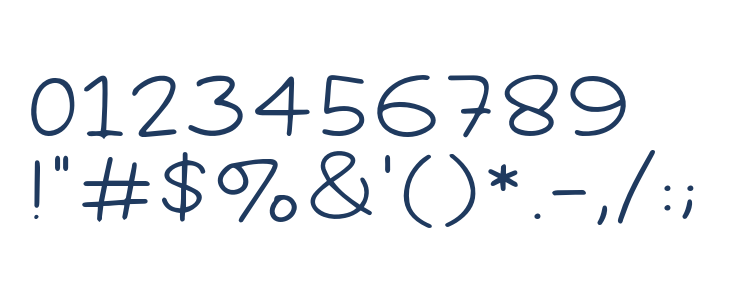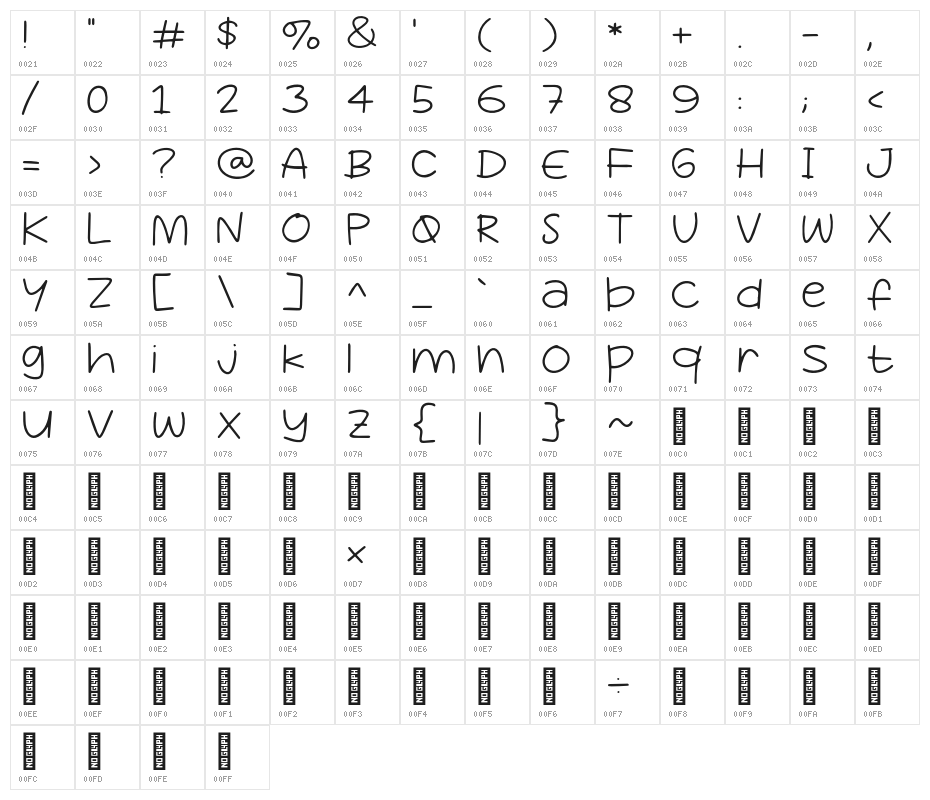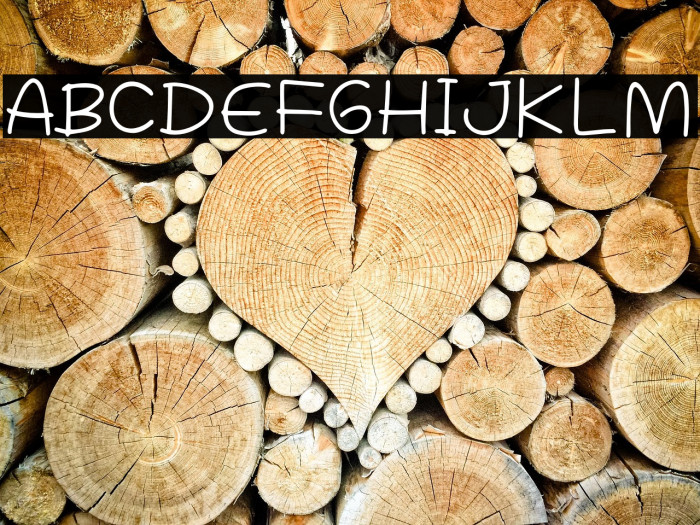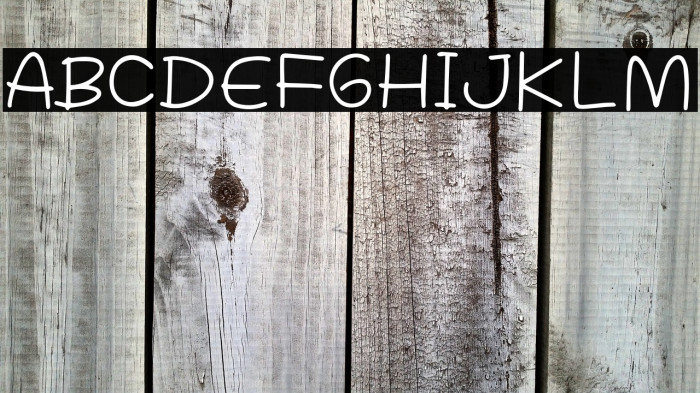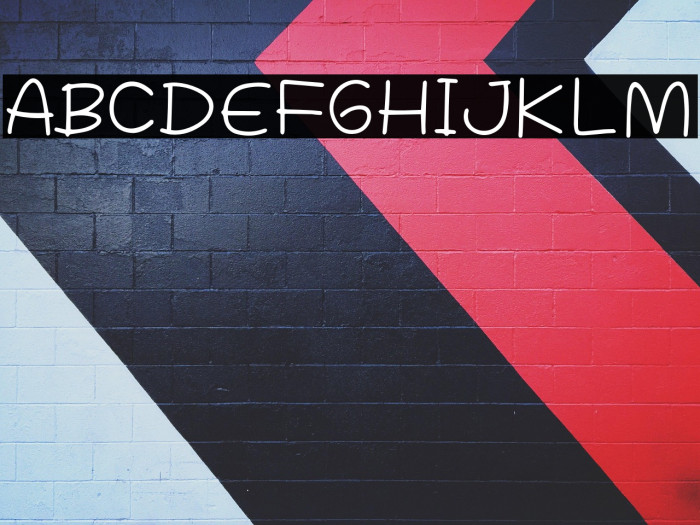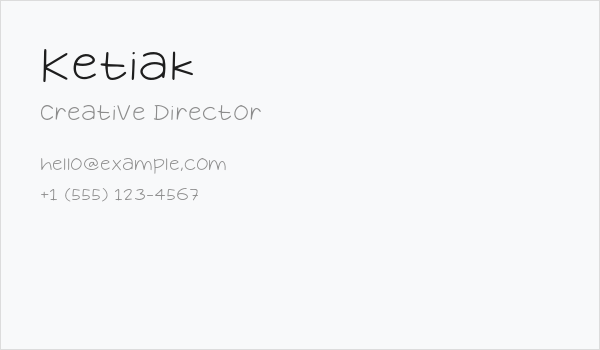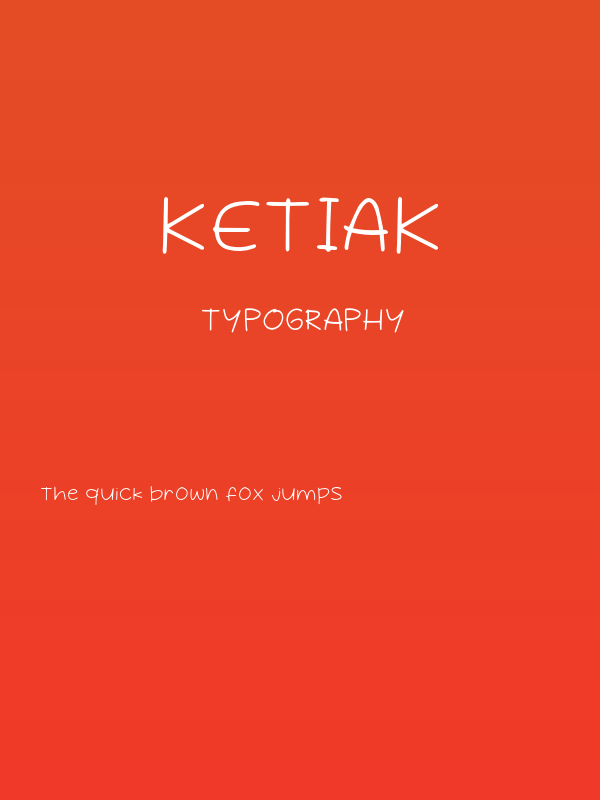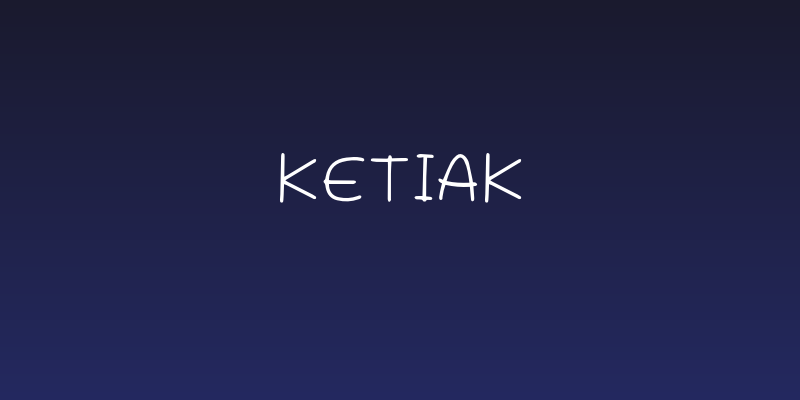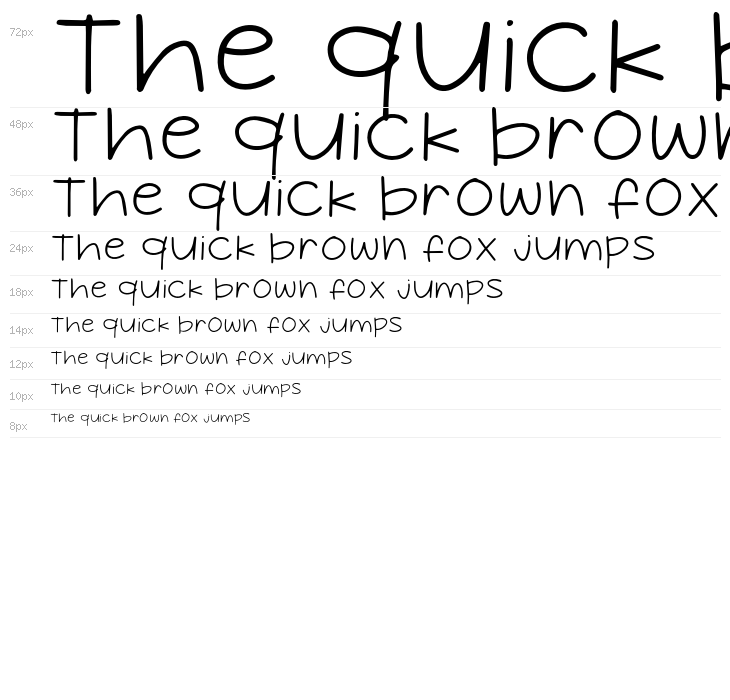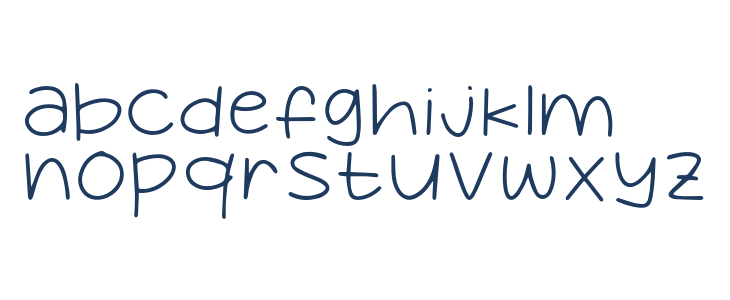
Ketiak Font
Ketiak Description
This playful and casual font features a handwritten style with a relaxed and informal appearance. The characters are slightly irregular, giving it a personal and approachable feel. The strokes are consistent in width, contributing to a clean and legible look. The font includes both uppercase and lowercase letters, numerals, and a variety of special characters, making it versatile for different uses. Its friendly and whimsical nature makes it suitable for projects that aim to convey warmth and creativity.
| Proposed Projects | Ideal for children's books, greeting cards, personal blogs, and creative branding projects. |